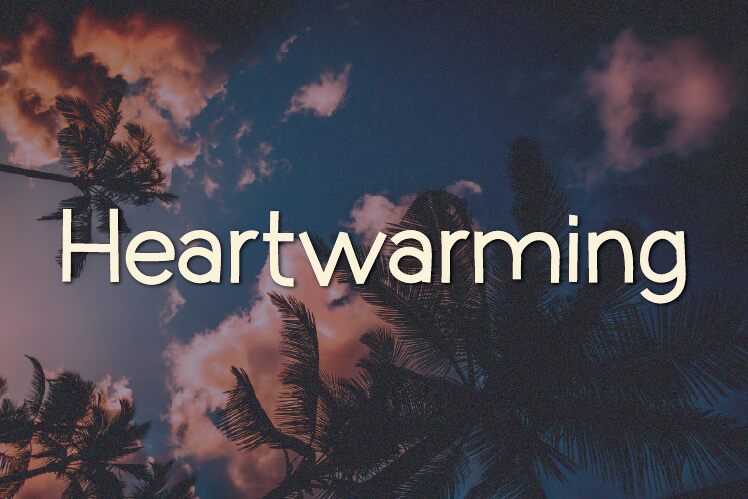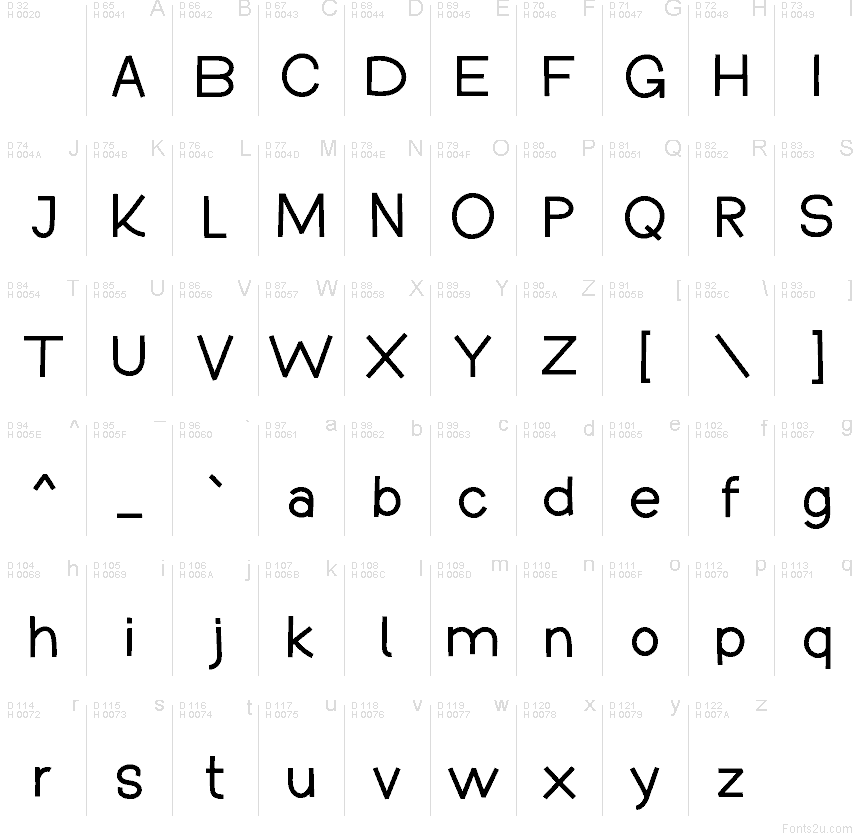
Heartwarming
Heartwarming font by HannaBie Creative Studio is a free comic display typeface that smooths out the usual chaos of playful lettering. Its round, even strokes, gentle curves, and tidy spacing keep things readable while still feeling bubbly and hand-drawn. The result is a friendly, approachable look that’s fun without turning clumsy or noisy on the page.
Using Heartwarming, you can bring a soft, upbeat tone to kids’ book covers, classroom posters, greeting cards, cozy brand logos, product packaging, stickers, and social media graphics. This free font shines at larger sizes where its subtle curves and inky weight can really show. Try pairing Heartwarming with a simple geometric sans for smaller body copy to keep your layouts clear and charming.